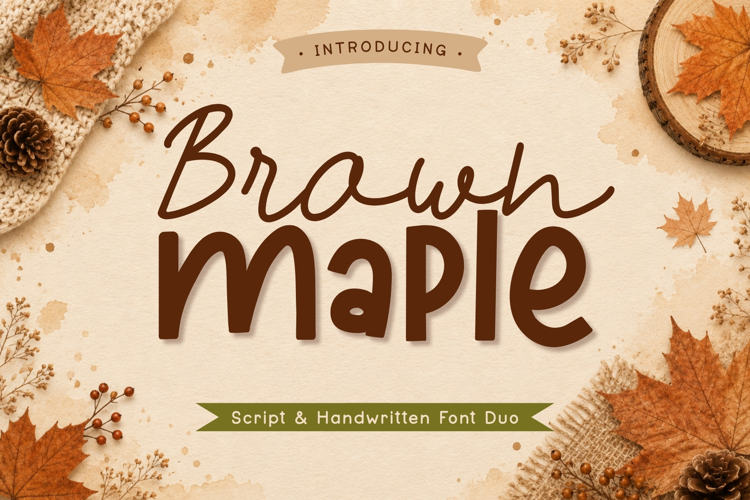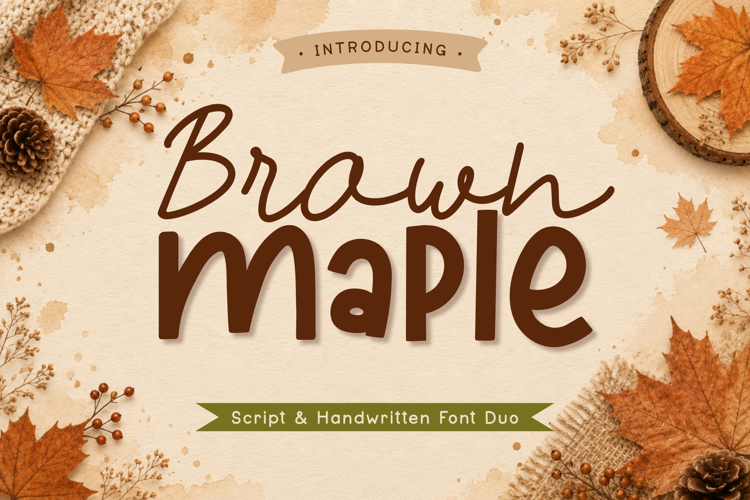
Brown Maple Font Duo - Handwritten Script Font
Brown Maple is a warm and charming font duo featuring a casual handwritten script paired with a playful display font. Designed to work beautifully together, this versatile combination is perfect for creating cozy and friendly designs with a natural handmade feel. Inspired by the warm atmosphere of autumn, Brown Maple is ideal for fall designs, seasonal quotes, mugs, T-shirts, tote bags, greeting cards, invitations, branding, packaging, social media graphics, and more.
The script style adds a relaxed handwritten touch, while the bold display font creates clear and eye-catching headlines. Mix and match both styles to create beautiful typography for seasonal and everyday creative.